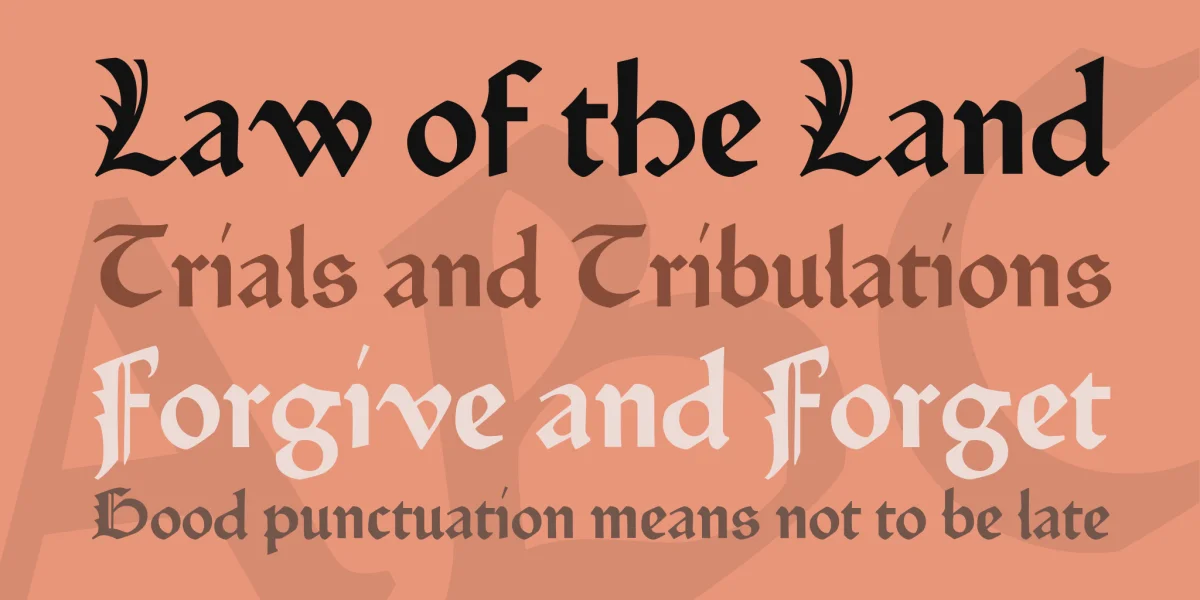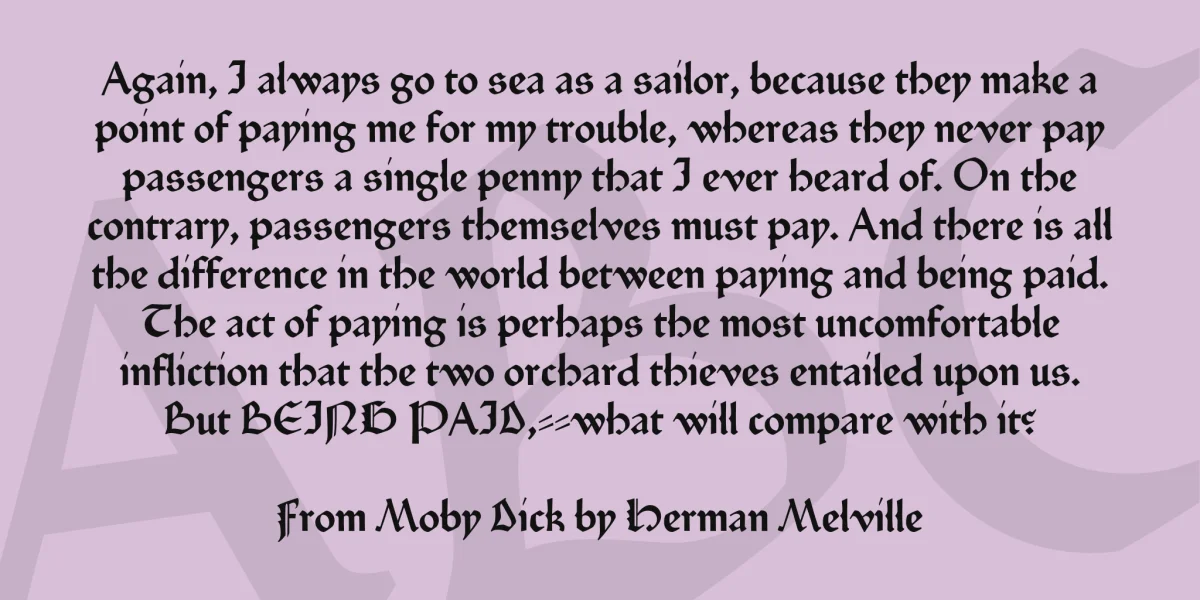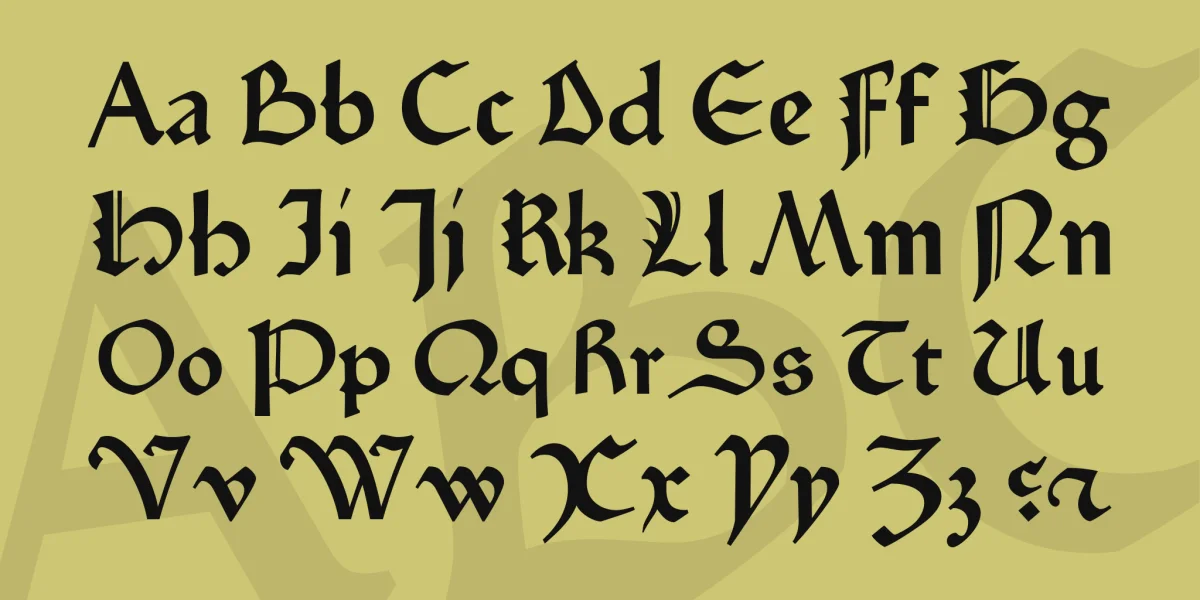
Fust & Schöffer ‘Durandus’ 118G, Gotico-Antiqua first used in Mainz by Peter Schöffer & Johann Fust for Guillaume Durand’s Rationale Divinorum Officorum in 1459. The book displays two sizes, the smaller 92G for the main text and the bigger and more contrasted 118G used only for the colophon and later for the famous 48-line Bible in 1462. Used until the end of the century.Type design workshop at Hochschule Mainz and Gutenberg-Bibliothek, Mainz, June 2016.Sources: Latin Bible, 1462 & Epistolae, Hieronymus, 1470 & De officiis, Cicero,1466.Workshop participants: Frederik Fuchs, Katharina Blust, Roxane Lhéoté, André van Rueth, Lai Ping So, Marlene Arnold, Marilyn Baumann, Bettina Andresen, Sophie Golle, Yasemin Fakili.Font designed and produced by Alexis Faudot and Rafael Ribas, directed by Jérôme Knebusch, Atelier National de Recherche Typographique (ANRT), Nancy.Copyright © 2019 ANRT. All rights reserved.